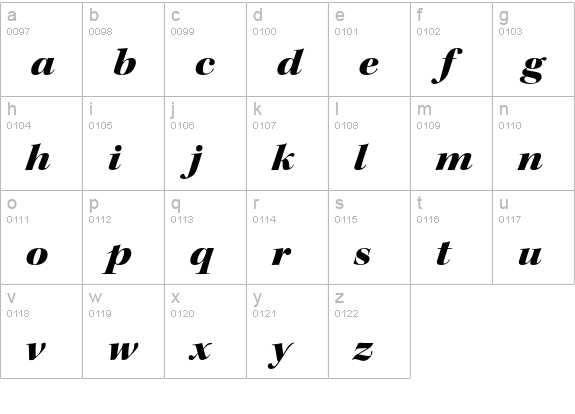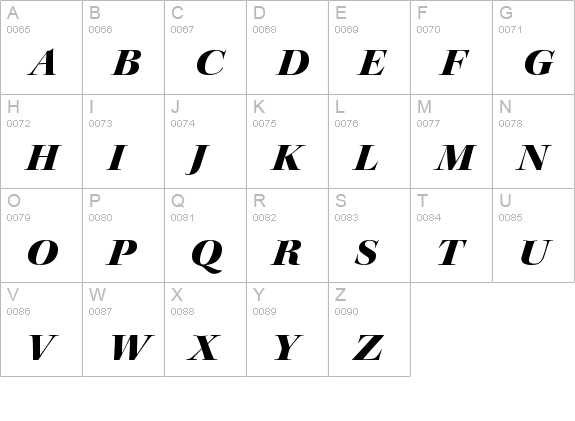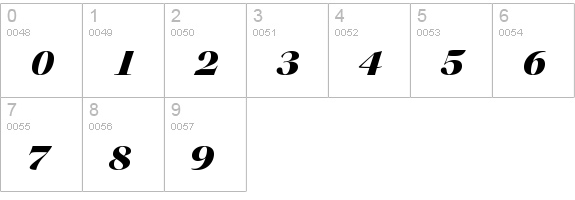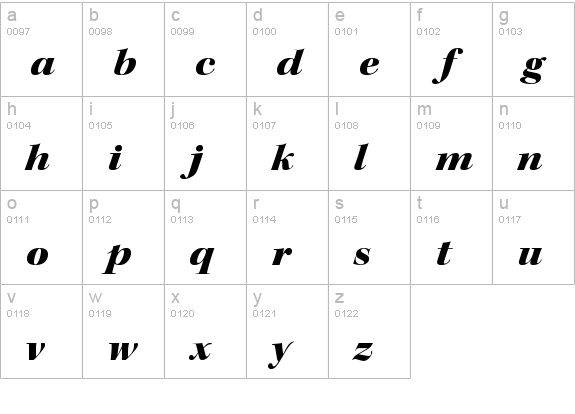
Kepler Std Black Extended Italic Display Font Details
Kepler Std Black Extended Italic Display is a maximum-weight, dramatic, extended-width, italic variant in the Kepler typeface family \xE2\x80\x94 well suited to maximum-impact headlines, posters, and packaging.
Kepler Std Black Extended Italic Display font is a bold and eye-catching typeface that exudes elegance and sophistication. With its extended and italic design, this font is perfect for creating impactful and dynamic display materials. The Kepler Std Black Extended Italic Display font is characterized by its strong and commanding letterforms, which make it ideal for making headlines, titles, and logos stand out. Its extended proportions give it a unique and modern look, while the italic slant adds a touch of grace and flair. This font is not only visually stunning but also highly legible, ensuring that your message is conveyed with clarity and style. Whether you need to make a statement on a poster, advertisement, or website, the Kepler Std Black Extended Italic Display font is sure to captivate your audience. What's even better is that this font is available for free! You can easily download the Kepler Std Black Extended Italic Display font from FontsMarket.com, a trusted source for high-quality fonts. So why wait? Enhance your designs with this exceptional typeface and make a lasting impression today!